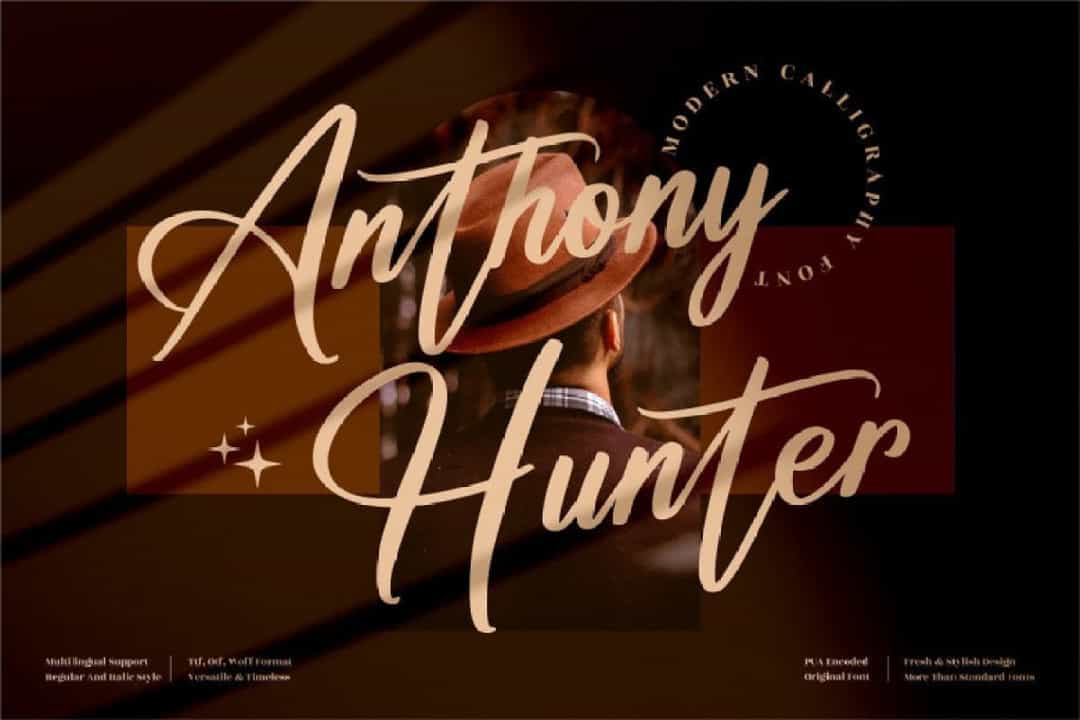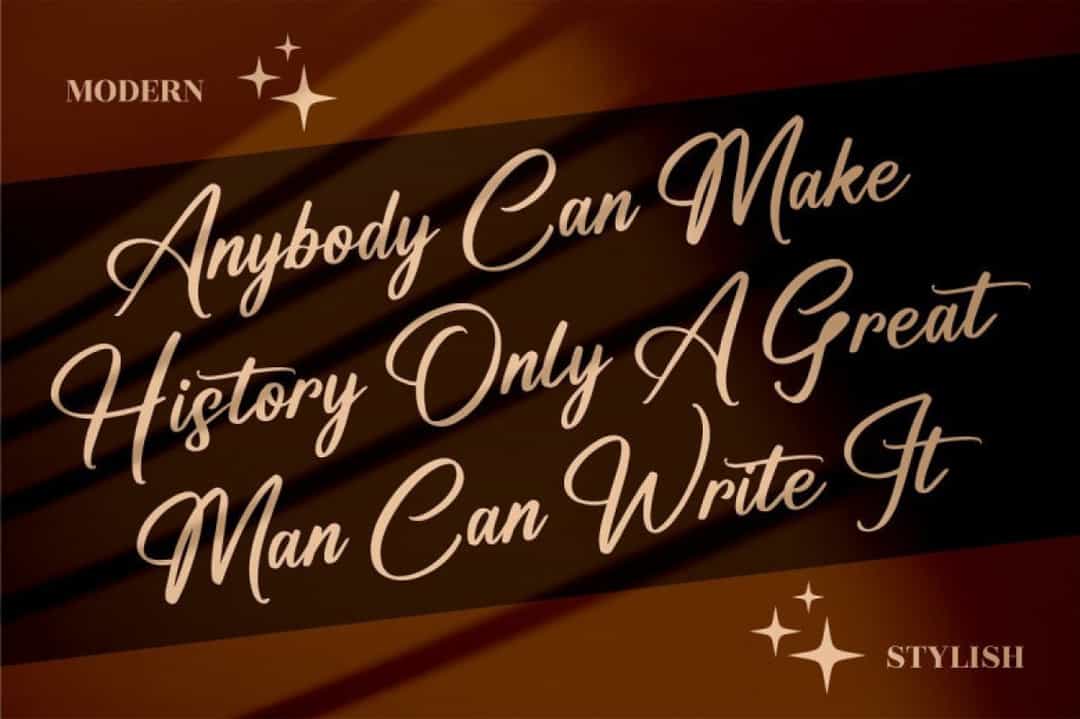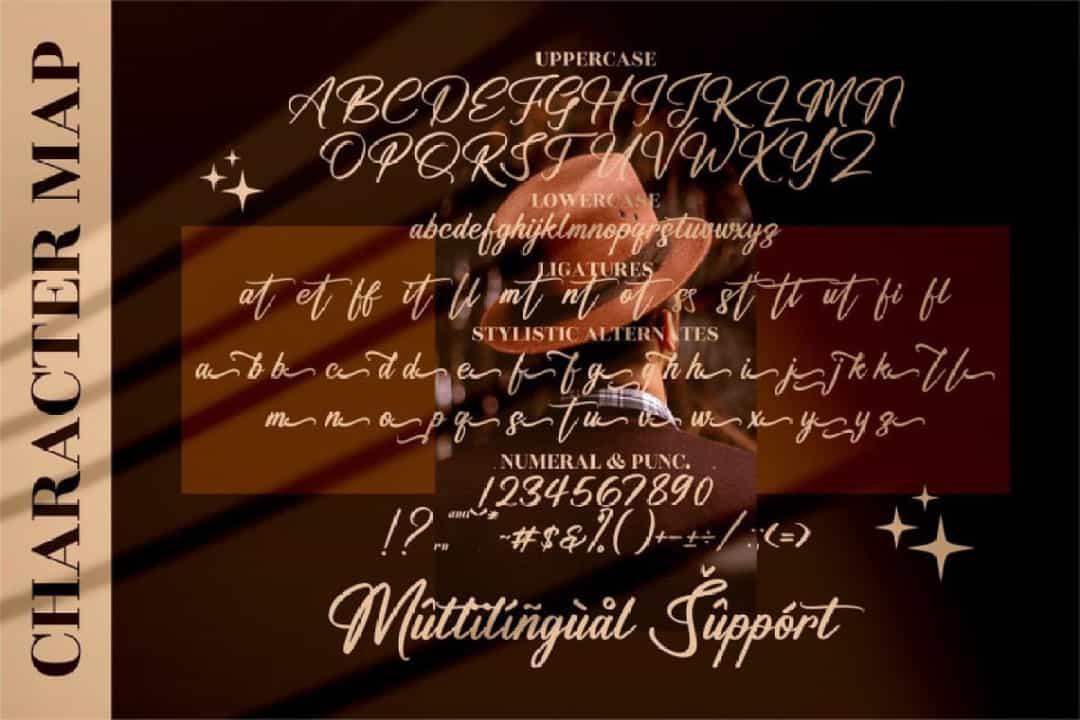
Anthony Hunter is an elegant lighter script calligraphy font with an unforgettable aesthetic and impact, perfect for adding sophisticated energy to any design! PUA encoded, so that all its incredible characters and ligatures can be quickly accessed!